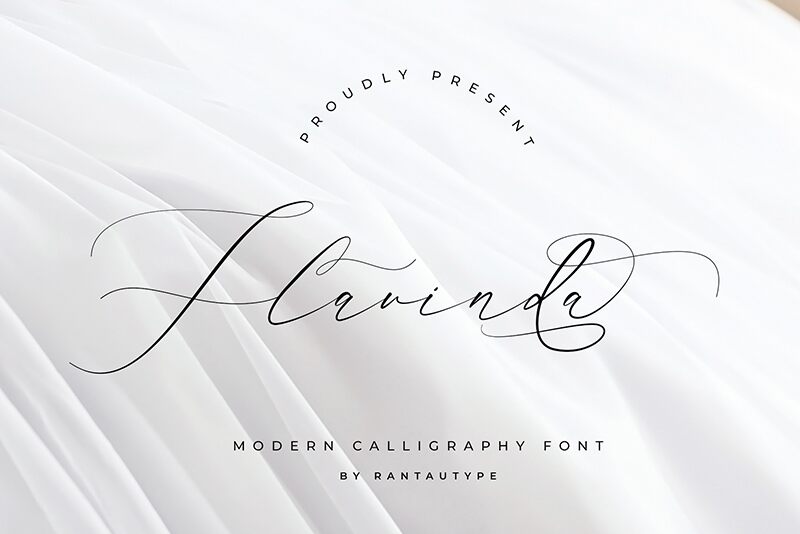
Flavinda
Flavinda font is a sophisticated and elegant calligraphy typeface designed by RantautypeStudio. This modern script font showcases flowing and expressive letterforms with decorative elements, reflecting grace and beauty across all its characters. Its overall look is extremely elegant with formal undertones that make it an excellent choice for creating stunning artistic projects.
This free calligraphy font is versatile enough to serve as in logotype designs, flyers, branding applications for packaging or labels, invitation cards for different events such as weddings or birthdays, advertising purposes in posters or magazines, website designs aimed at luxury audiences, print on high-end apparel like t-shirts or hats. It can also be used on social media posts and book covers where elegance needs to be highlighted!